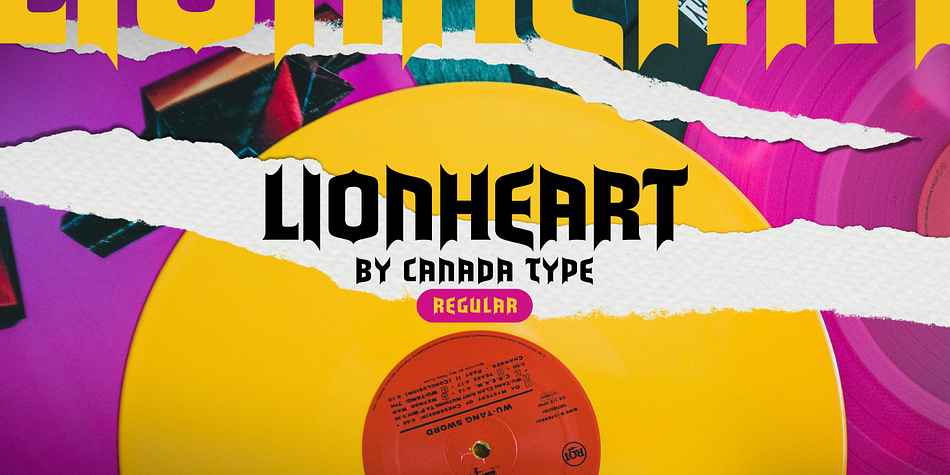
Lionheart
Lionheart is a blackletter and display font family published by Canada Type.
Lionheart is the digitization and expansion of Saladin, a neo-gothic typeface designed by Friedrich Poppl, long after he established himself as one of the greatest German designers of all time with some of the most “ausgezeichnet” scripts and text faces to ever come out of Europe. This typeface, though lesser-known among Poppl’s other masterpieces, was one of the first in its genre to abandon blackletter influence and attempt letter variations based strictly on Roman alphabet shapes. Poppl’s idea spawned a whole generation of neo-gothics that can now be found on many a movie poster or book cover where the design must hint at secrets and dark sides.
Lionheart succeeds with the idea of gradual curves leading to sharp concave or plano-concave terminals, to effectively build serious letter forms that speak of historical mystique and mystery.
This font was was named after Richard I, King of England for a decade in the late 11th century. He reportedly exchanged many gifts of respect with Saladin, even though the two kings were on different sides of the Crusades.